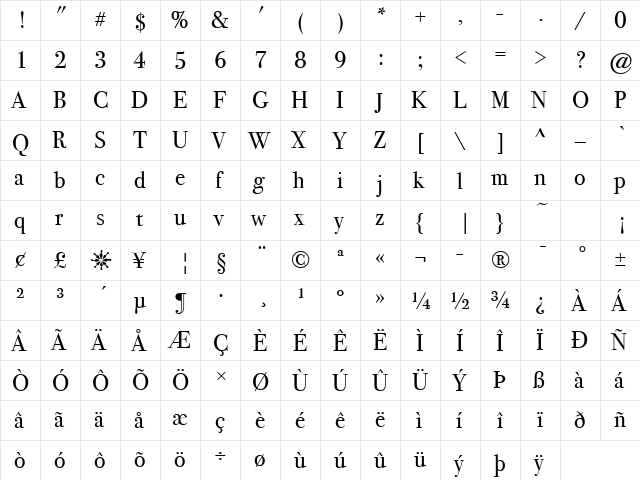
Bodoni SvtyTwo ITC TT Book
Design Context for Bodoni SvtyTwo ITC TT Typeface
Bodoni SvtyTwo ITC TT takes a measured approach to typography — its balanced proportions and neutral character make it a reliable workhorse for both digital and print work.